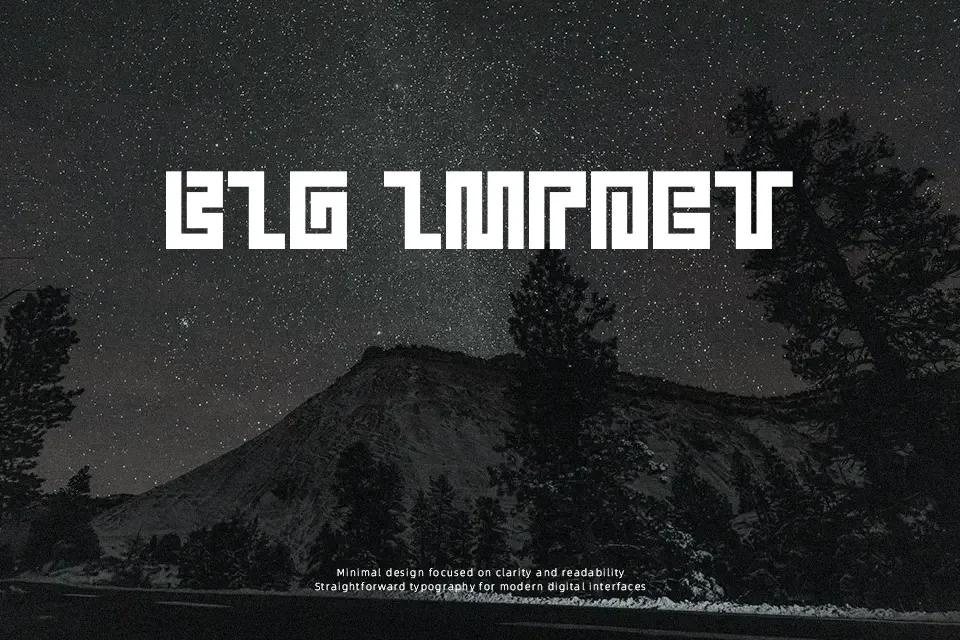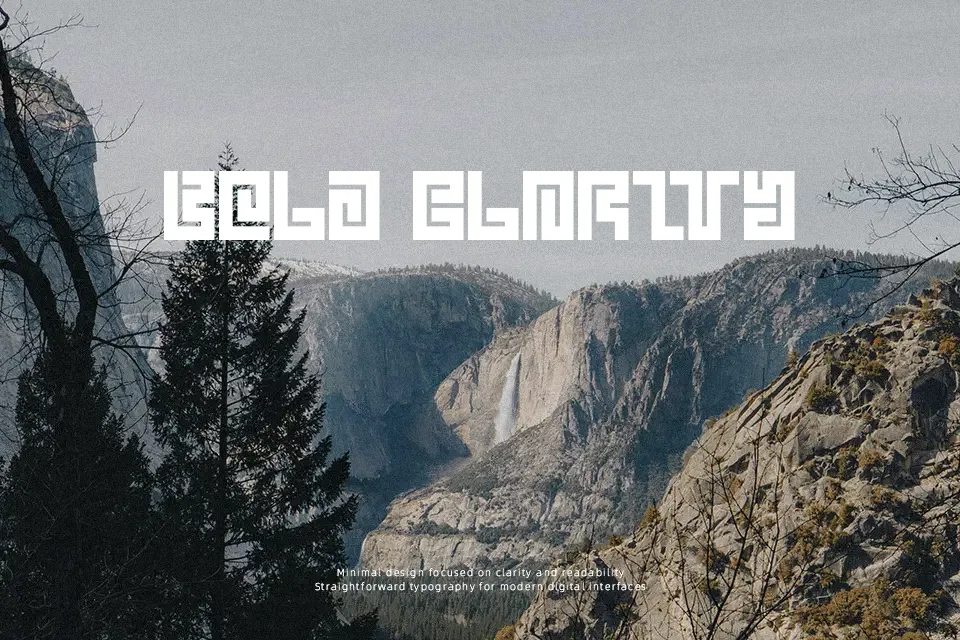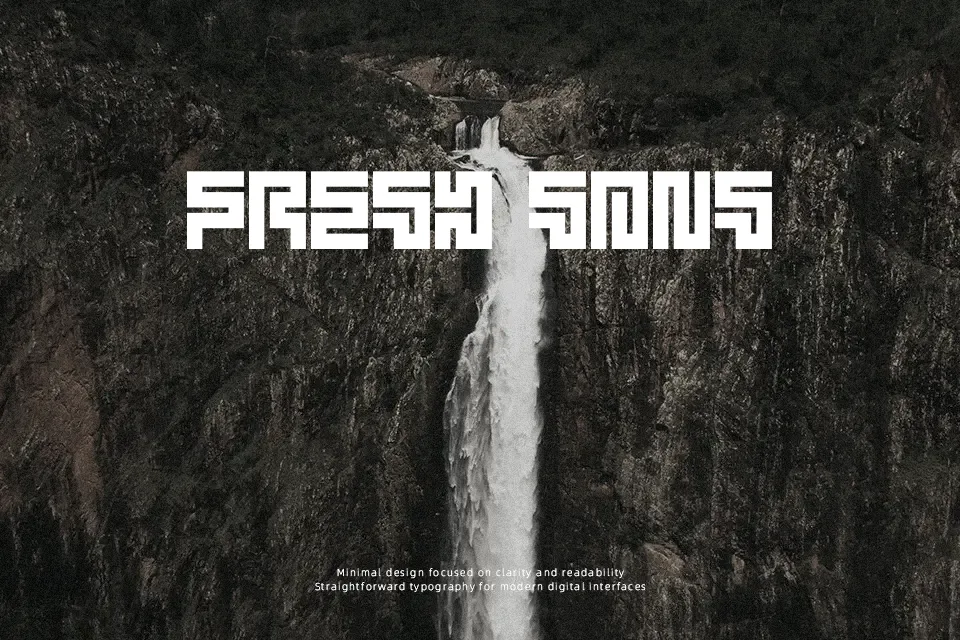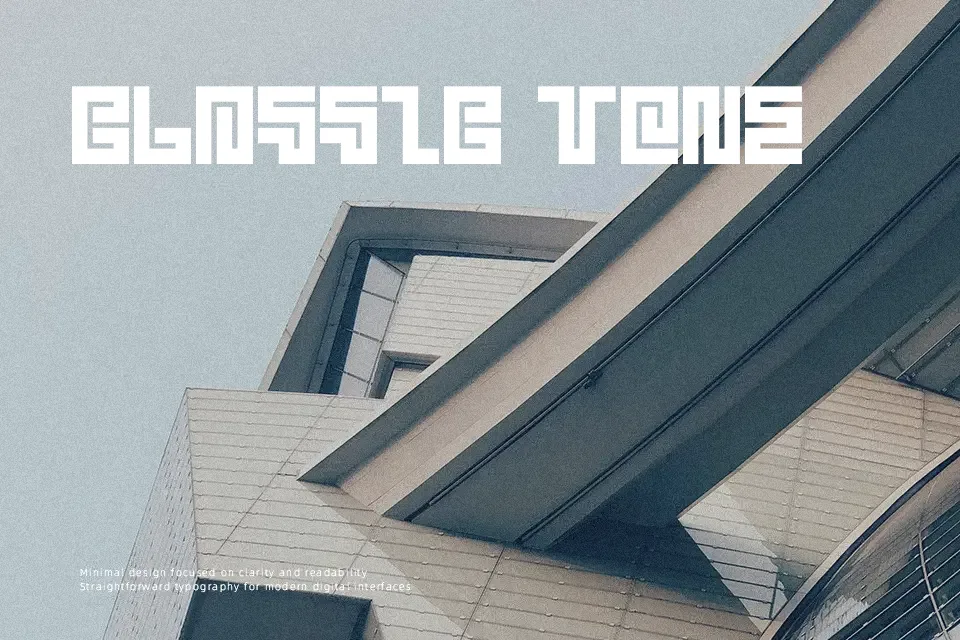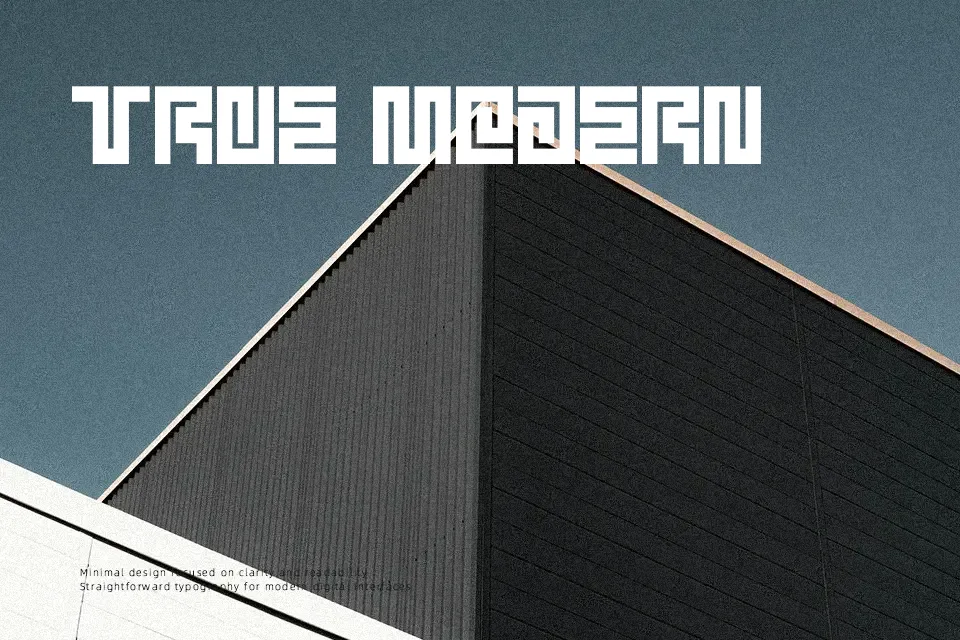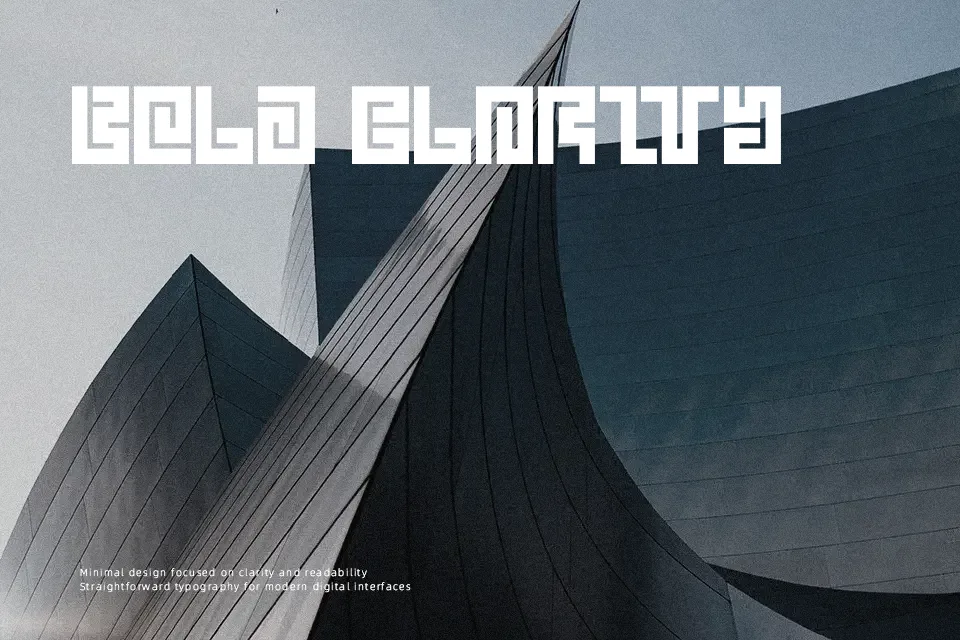
Ancient One Font
Ancient One leans hard into visual drama — its letterforms are dense, geometric, and deliberately labyrinthine, evoking stone carvings or sigil-like inscriptions rather than conventional typography. The strokes carry consistent weight with minimal contrast, giving the typeface a rigid, almost architectural feel. It works well for short headline bursts: a game title screen, a Halloween event poster, or the cover of a self-published dark fiction novel. That rigidity, however, becomes a liability at smaller sizes — individual characters start bleeding together and legibility drops quickly. Pairing it with a clean sans-serif for supporting text helps, but Ancient One itself should stay above 36pt to hold its visual integrity. Not a workhorse font; more of a statement piece with a narrow but effective range.
Best For:- Fantasy or tabletop RPG game title screens
– Halloween event posters and horror-themed print materials
– Occult or dark-aesthetic branding headers
– Book covers for dark fiction or mythology-themed projects
Not Ideal For:- Body text or any paragraph-length copy
– Corporate or professional business materials
– UI labels or small-scale digital text
– Projects requiring broad multilingual character support
Perfect for film, gaming, and halloween, with a ancient and decorative style.